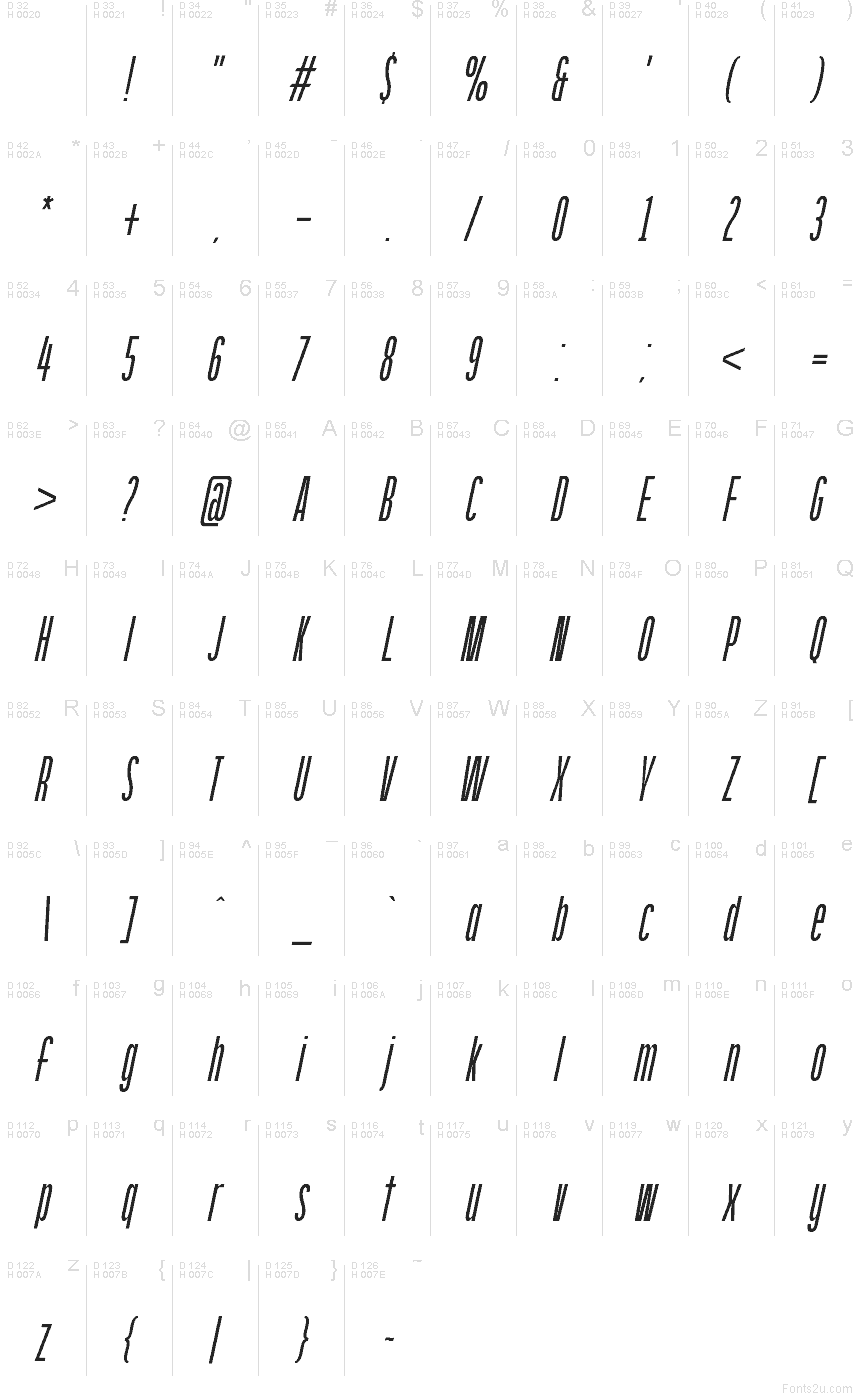
Gantura Light Italic font by Muhamad Fikry Nuralif of Fikryal Studio is a free sans serif font, a lean italic typeface with a striking forward tilt. Its tall, compressed letters and razor-thin strokes feel like they’ve been pulled by speed, giving every word a sense of motion without turning chaotic. The texture is clean and inky, with just enough curve to soften the otherwise disciplined, vertical rhythm.
Using Gantura Light Italic, your text instantly takes on a fast, contemporary attitude that shines on sports branding, fashion posters, music covers, event titles, logos, and bold social media graphics. This free font works beautifully at larger sizes where its narrow stance saves space but still reads clearly. For balance, pair Gantura Light Italic with the upright Gantura regular for body copy, letting the italic style handle headlines and accents.